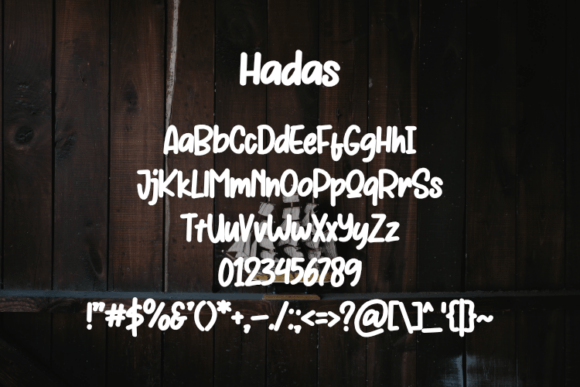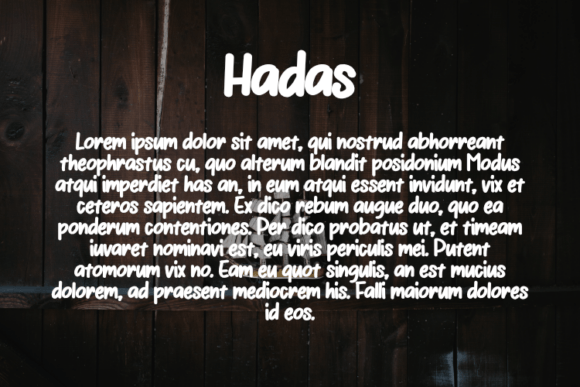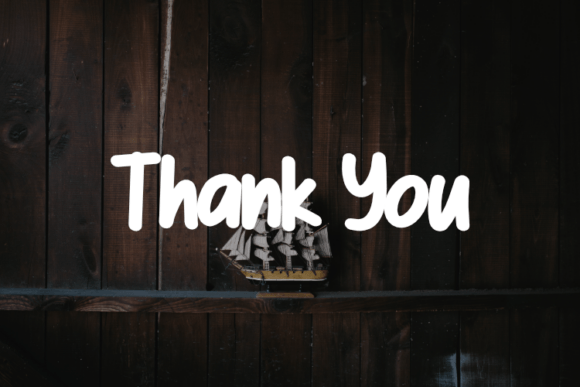
Introducing Hadas Font: Elevate Your Fashion Design with Style and Versatility
In the world of fashion design, the right typography can make all the difference. A font that exudes elegance, sophistication, and creativity can instantly elevate the appeal of clothing items, accessories, and a multitude of other products. This is where Hadas Font comes into play – a meticulously crafted typeface designed specifically for fashion design applications. With its seamless blend of style and functionality, Hadas is poised to become the go-to font for designers and crafters looking to add a touch of allure to their creations.
What Makes Hadas Font Stand Out?
Hadas Font is not just another typeface; it’s a versatile tool that can enhance a wide range of products, from t-shirts and clothing items to accessories and branding materials. Its design is centered around providing a unique aesthetic appeal that can instantly capture the attention of potential customers. Whether you’re working on a high-end fashion brand or a casual, laid-back label, Hadas offers the perfect blend of sophistication and approachability.
Key Features of Hadas Font
• Versatility: Hadas Font is designed to be versatile, making it suitable for a wide range of fashion design applications. From elegant evening wear to casual streetwear, Hadas can adapt to any style or theme.
• Style and Functionality: The font is crafted to offer a perfect balance of style and functionality. Hadas is not just aesthetically pleasing but also highly legible, making it ideal for use on a variety of products, from detailed labels to large billboards.
For designers and crafters, Hadas Font offers numerous benefits. Its unique style can help differentiate your brand or product in a crowded market. The font’s versatility means you can use it across a range of projects, from apparel to accessories, without needing to switch fonts. Moreover, the ease of use and compatibility with all design platforms save time and reduce the complexity of the design process.
• Experiment with Sizes: Hadas Font looks great in various sizes, from small labels to large banners. Experiment with different sizes to see what works best for your design.
• Play with Colors: The font’s elegant design makes it suitable for use with a wide range of colors. Don’t be afraid to experiment with different color schemes to find the one that best matches your brand or product.
• Combine with Other Fonts: For added creativity, try pairing Hadas Font with other fonts. Its versatility makes it a great candidate for use in combination with sans-serif or script fonts to create visually appealing contrasts.
Hadas Font is a game-changer for designers and crafters looking to elevate their fashion designs with a touch of elegance and sophistication. Its versatility, compatibility, and perfect blend of style and functionality make it an indispensable tool in the world of fashion design. Whether you’re working on a high-end fashion brand or a casual label, Hadas Font is the perfect choice to enhance the allure of your products and make your designs stand out.